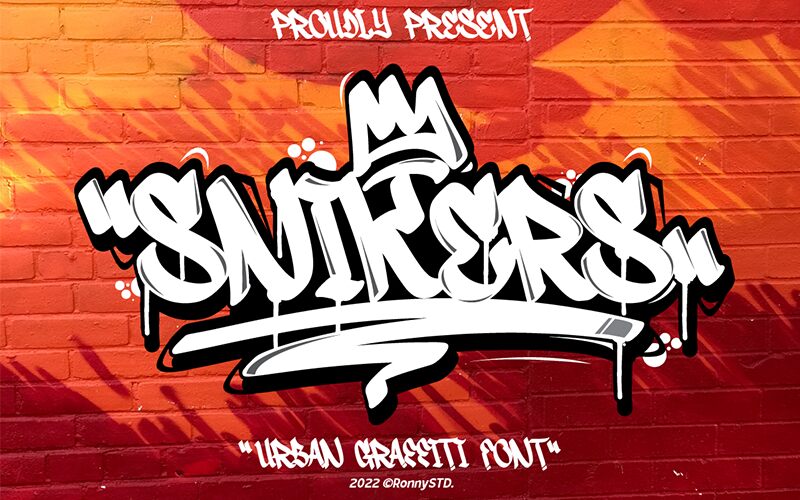
Snikers, a captivating graffiti-inspired font crafted by Ronny Studio, exudes a bold, unapologetic energy. Its distinct letterforms, with their sharp angles and dynamic curves, evoke a sense of urban grit and rebellious expression. This font's raw, edgy aesthetic lends itself seamlessly to a wide range of design applications, from concert posters and album covers to street art installations and product packaging.
Snikers' versatility shines through its ability to command attention and convey a powerful visual message. Whether designing for a high-energy brand, creating eye-catching signage, or adding a touch of gritty authenticity to a digital campaign, this font's striking presence is sure to leave a lasting impression on the viewer.